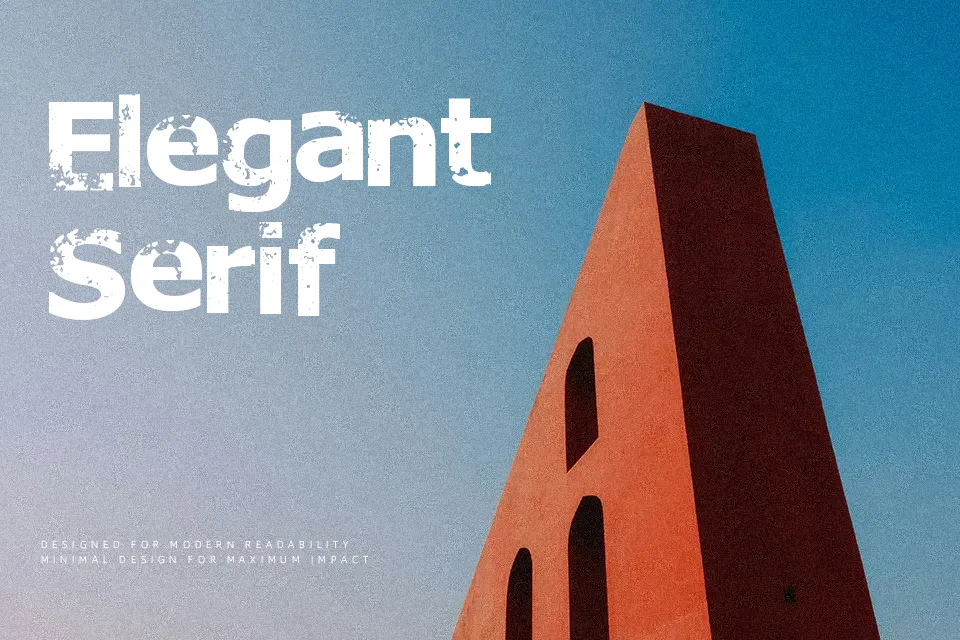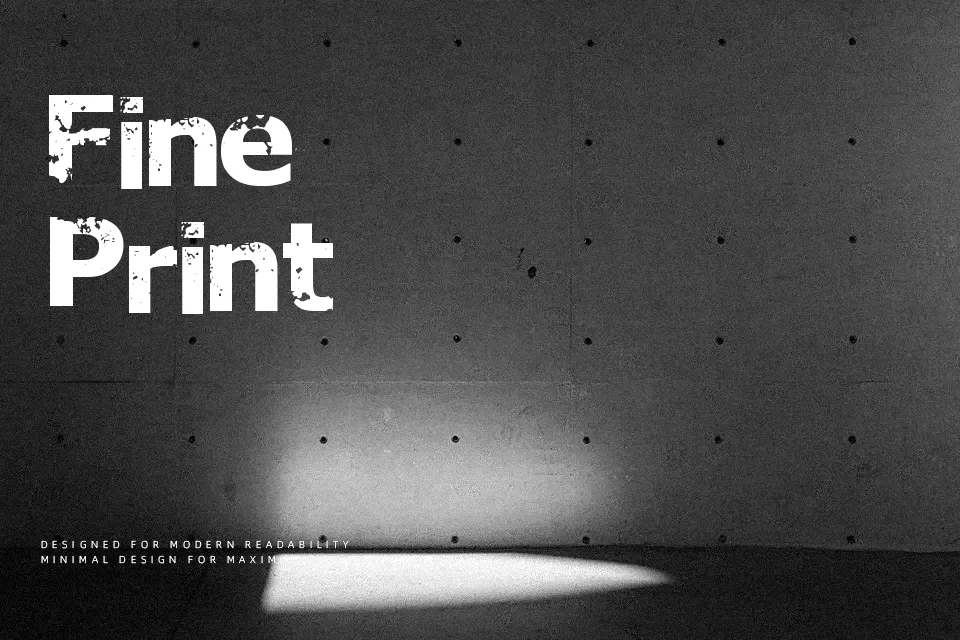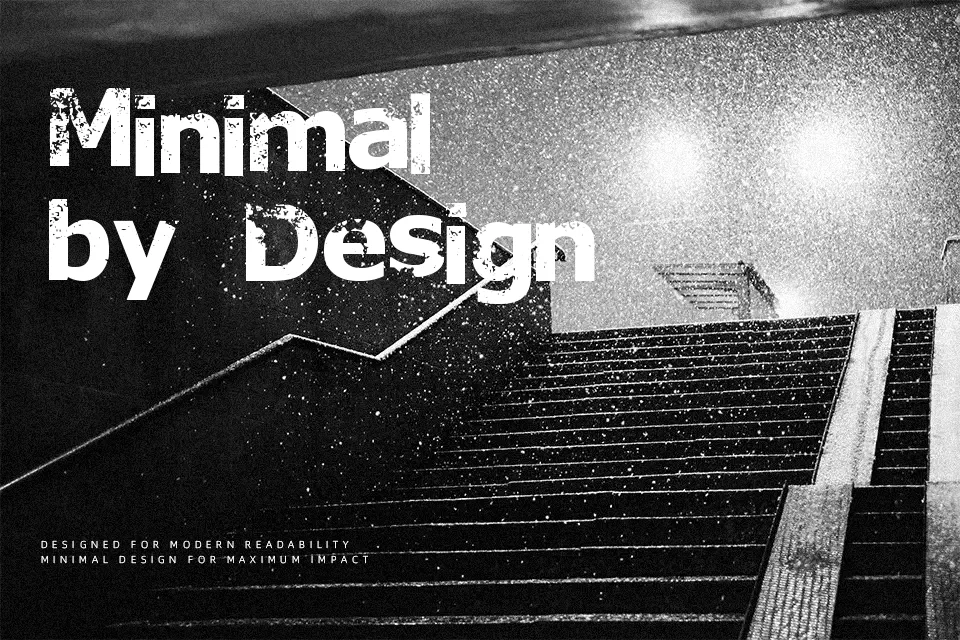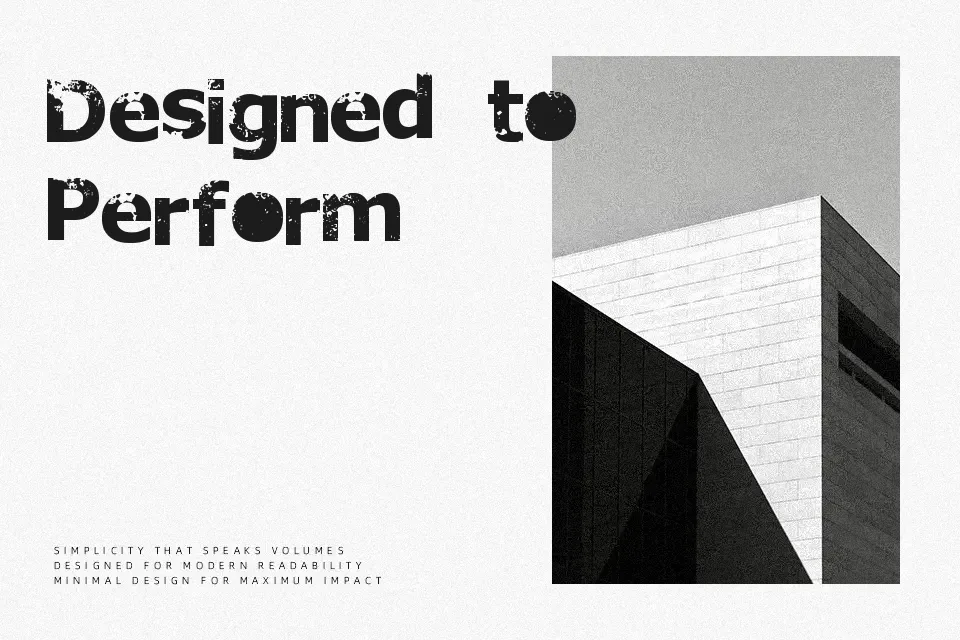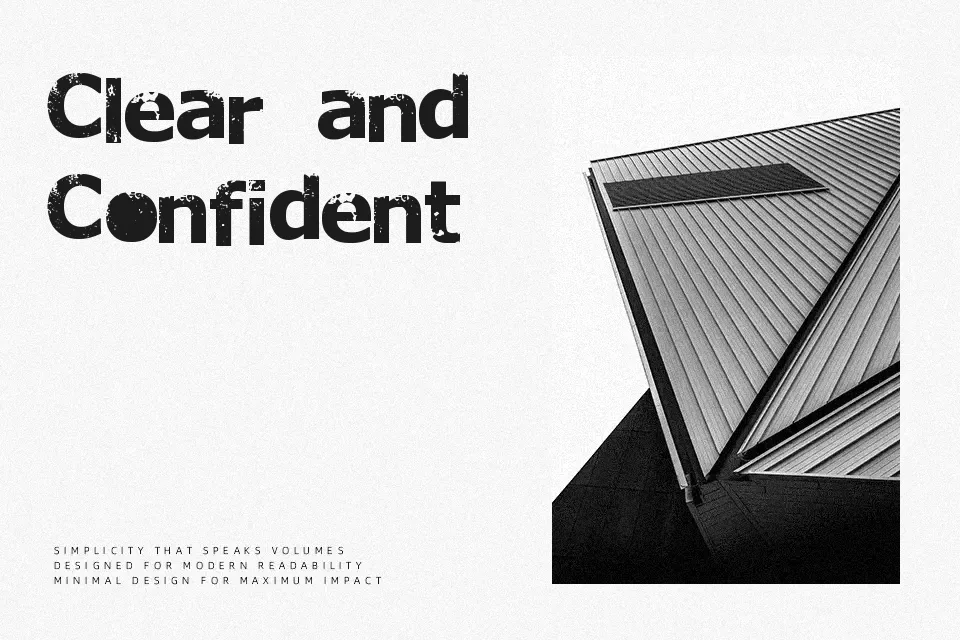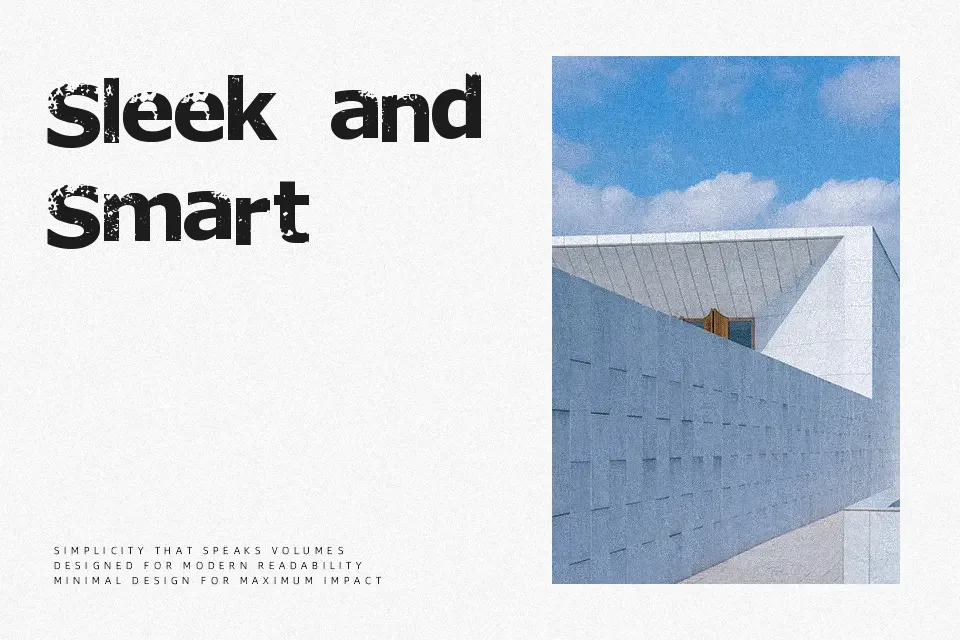
Rusto Font
Visual structure in Rusto Font establishes a weathered presence through heavily degraded strokes and irregular textures. The letterforms maintain a sturdy foundation beneath the eroded details, utilizing balanced proportions and moderate width. Spacing remains relatively open, preserving the distressed characteristics without allowing rough edges to blur together. This textured design performs exceptionally well in bold branding applications, vintage apparel graphics, and industrial-themed event posters. The spacing helps maintain clarity in larger headlines, allowing the rugged details to stand out naturally. However, these complex features create a noticeable limitation at smaller sizes, where distressed forms reduce continuous reading comfort and overall legibility. The typeface remains best suited for impactful display settings rather than dense text layouts.
Best For: vintage product packaging, industrial event posters, outdoor apparel graphics
Not Ideal For: long paragraph text, small interface labels, dense editorial layouts
Perfect for advertising, branding, and packaging, with a grunge and decorative style.